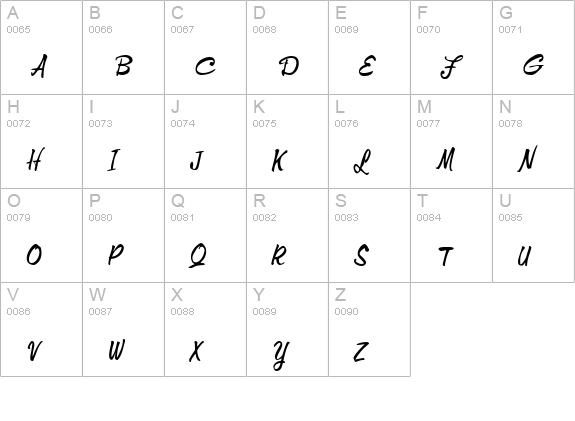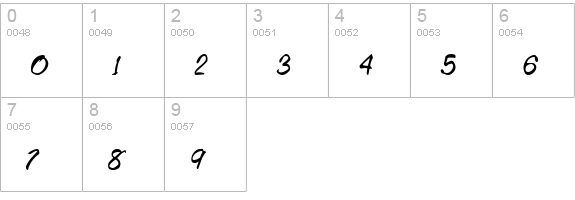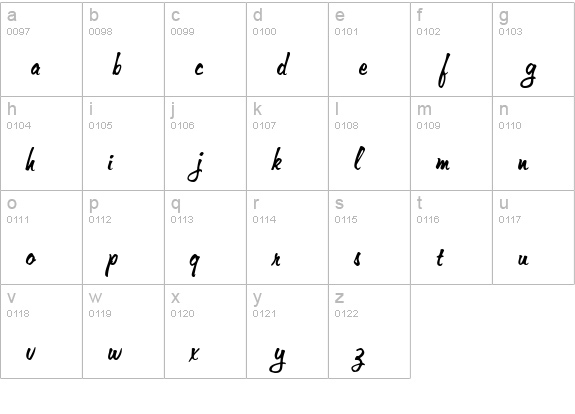
Memo Italic is a distinctive, italic variant in the Memo typeface family \xE2\x80\x94 well suited to design and typography projects.
Introducing Memo Italic font - a sleek and modern typeface that exudes elegance and sophistication. Its slanted design adds a touch of charm and personality to any project, making it perfect for headings, quotes, and branding materials. The gentle curves and unique letterforms of Memo Italic create a sense of fluidity and movement, enhancing the overall visual appeal. What's even better is that Memo Italic font is available for free download at FontsMarket.com. You can easily access this stylish typeface and use it in your designs without any cost. Whether you're working on a personal project or a professional assignment, Memo Italic font is a versatile choice that will elevate your work to the next level. Don't miss out on this opportunity to enhance your designs with this exquisite typeface - download Memo Italic for free today!